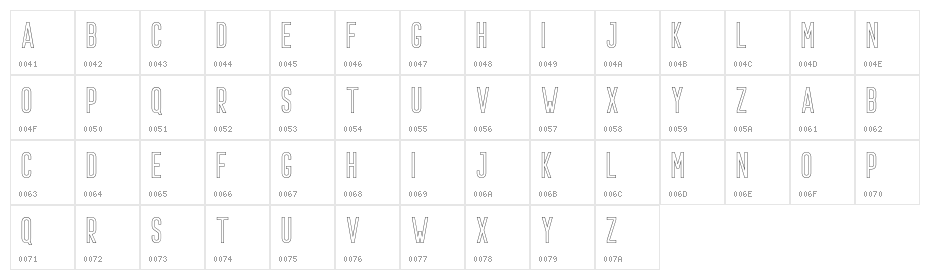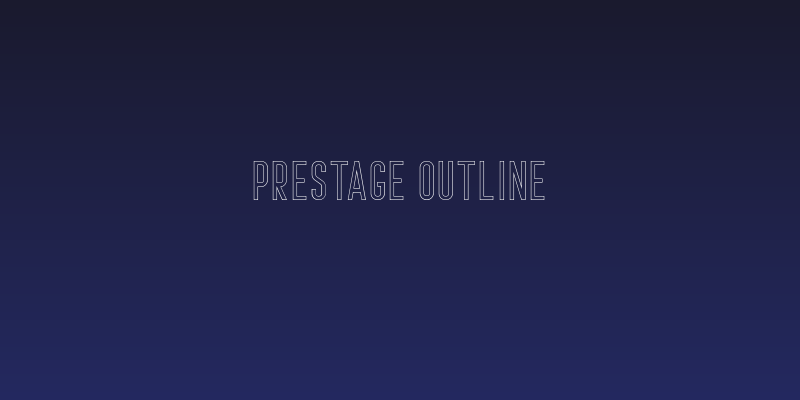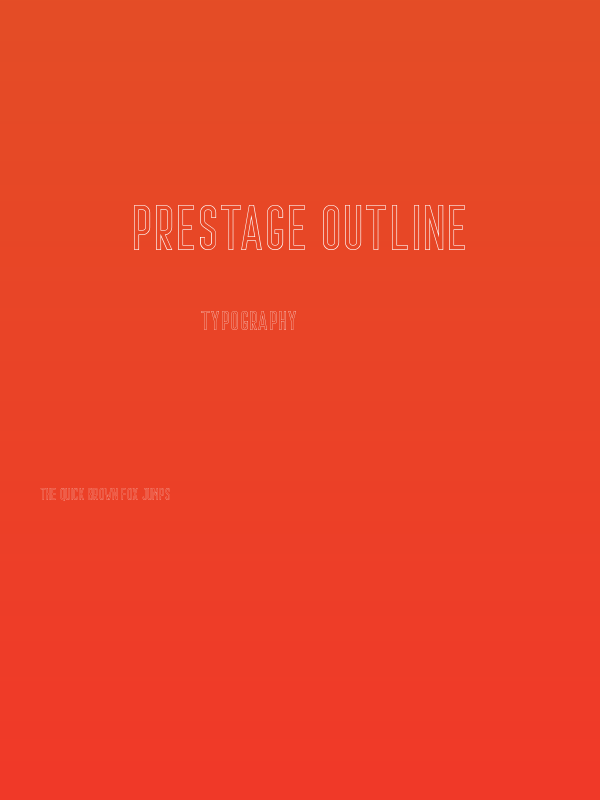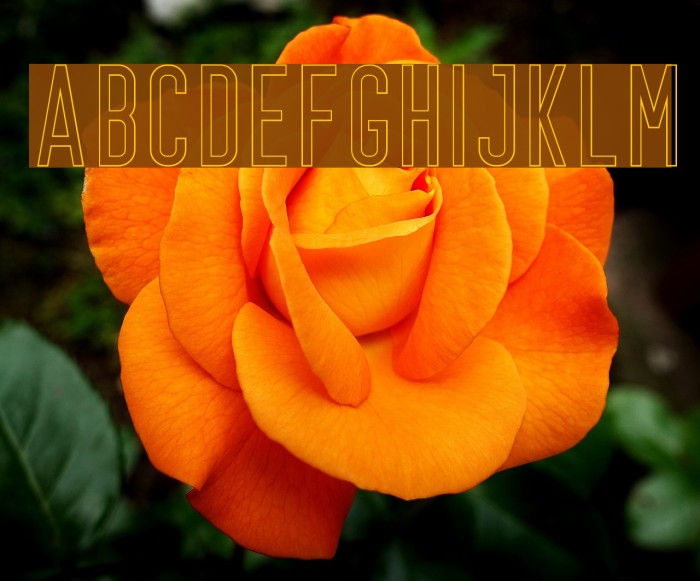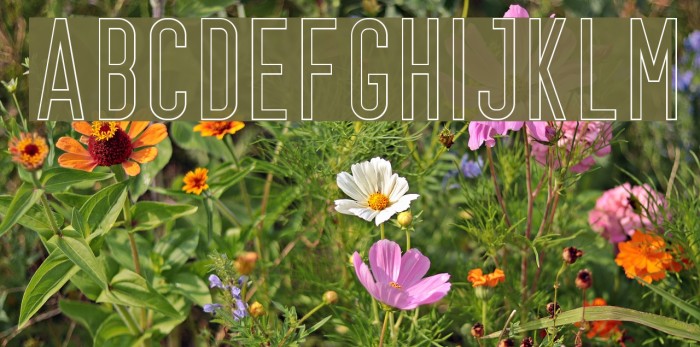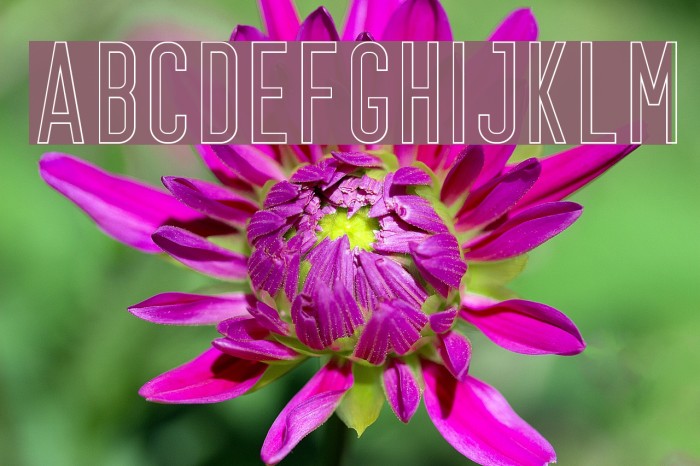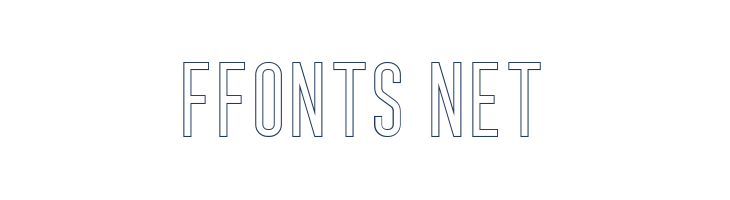
Prestage Outline Font
Prestage Outline Description
This font features a clean, geometric outline style that emphasizes clarity and modernity. Each character is crafted with precision, showcasing a uniform stroke width that forms an elegant outline without any filled areas. The uppercase letters are tall and slightly condensed, giving a sense of sophistication and professionalism. The font maintains a consistent height across all characters, ensuring a harmonious appearance. Its minimalistic design makes it versatile for various applications, while the outlined nature adds a unique touch that stands out in digital and print media. The spacing between characters is balanced, allowing for easy readability even at smaller sizes. This font is ideal for projects that require a modern and stylish aesthetic, such as branding, advertising, and editorial design.
| Proposed Projects | Ideal for branding, advertising, editorial design, and digital media where a modern and stylish aesthetic is desired. |